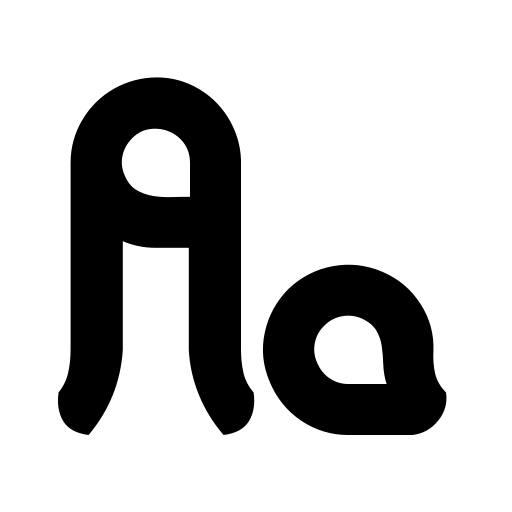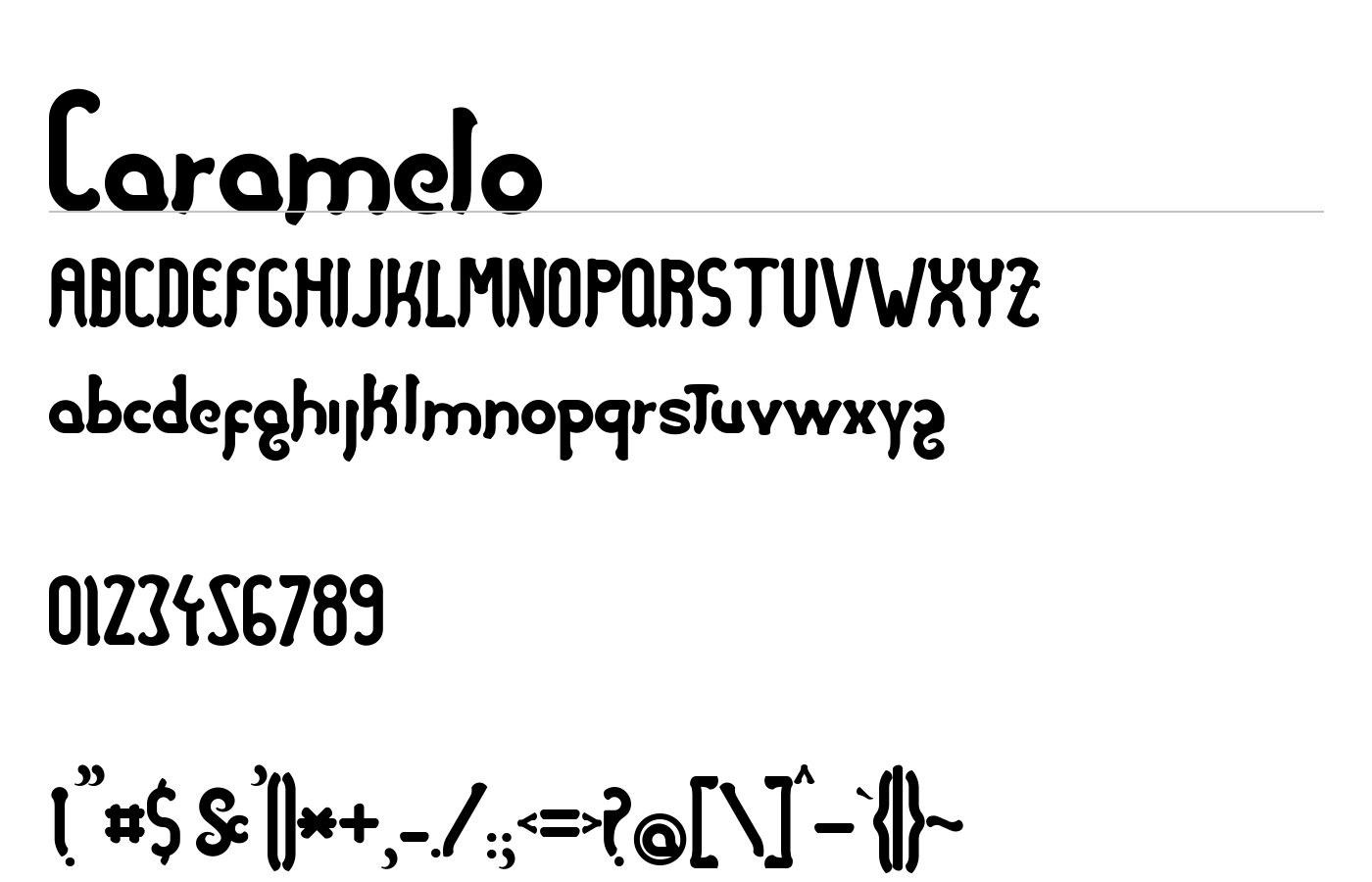
Caramelo is a playful and quirky sans serif font with a unique, rounded stroke that gives it a friendly and approachable feel. Its narrow width, medium x-height, and distinctive letterforms, like the curled tails on certain characters and unusual shapes, make it perfect for attention-grabbing headlines and creative branding. Ideal for fun, casual designs, Caramelo works well in posters, packaging, and logos that seek a whimsical and informal vibe.
Caramelo Font
About Caramelo Font
| Font family | Caramelo Font |
| Designer | Alberto villanueva |